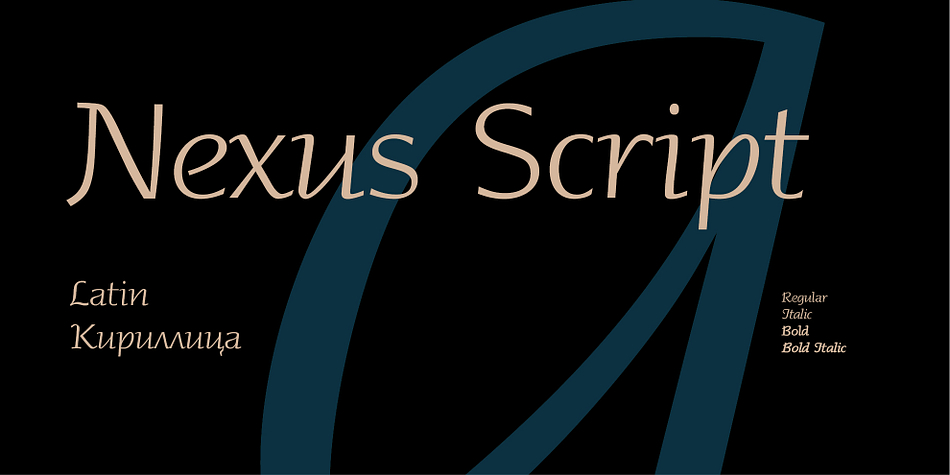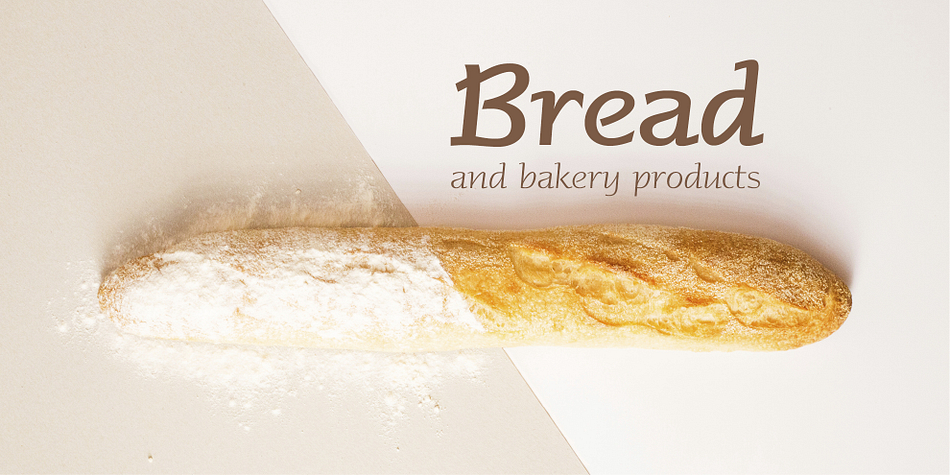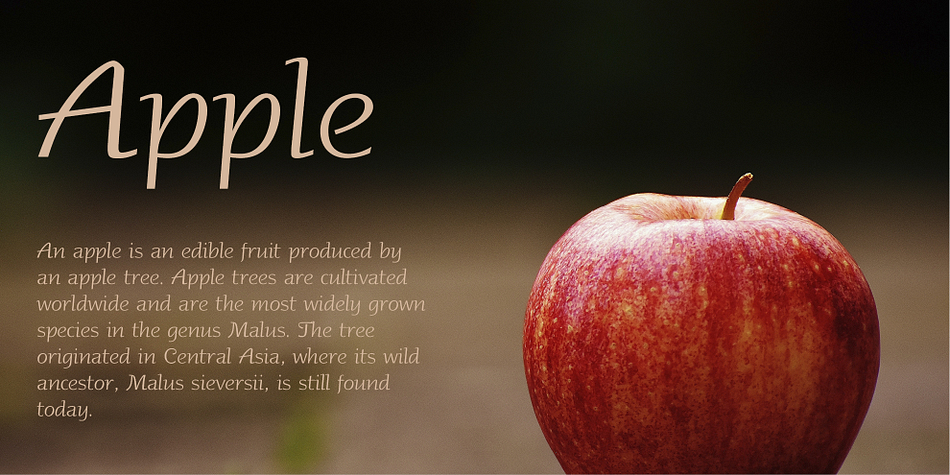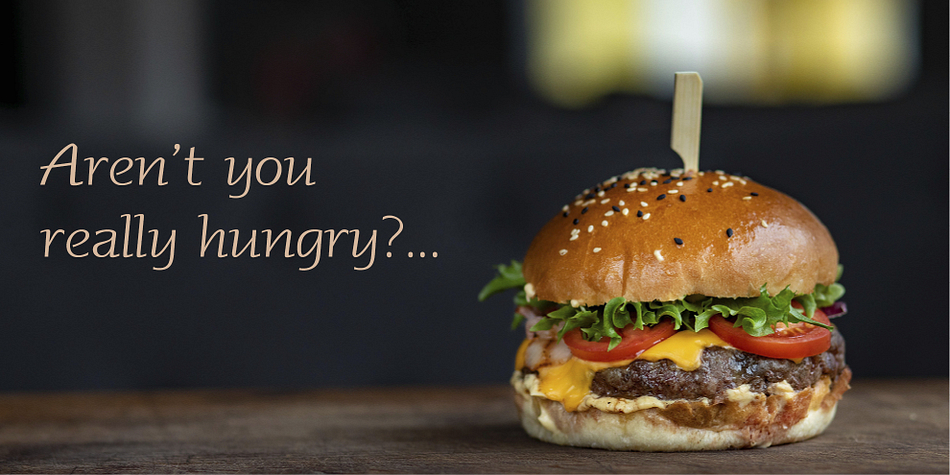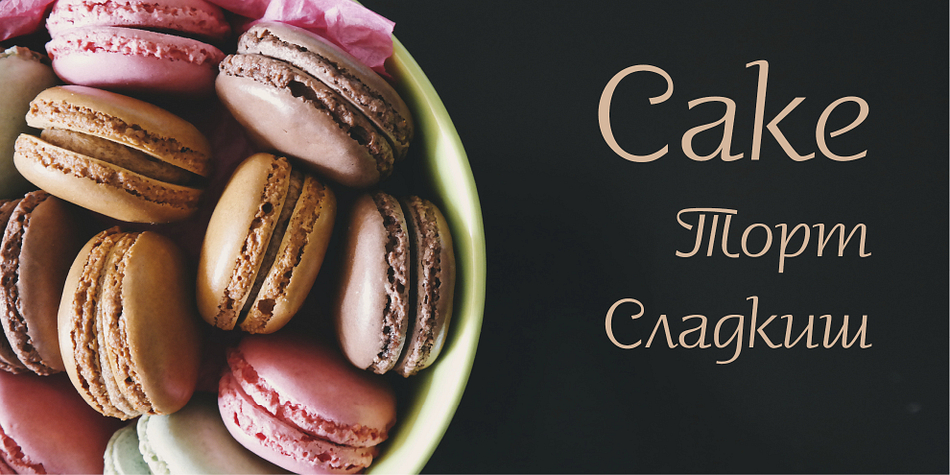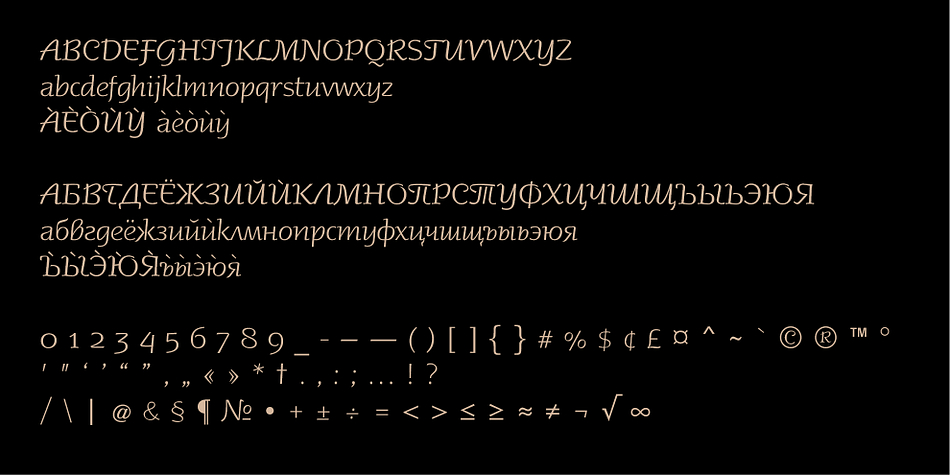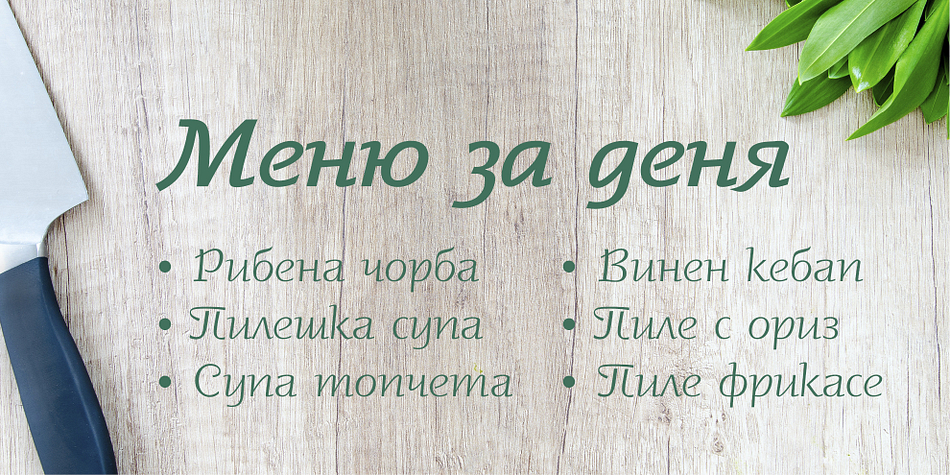
Nexus Script
Designed by Jivko Stankulov, Nexus Script is a script font family. This typeface has four styles and was published by Context Ltd.
Inspired by Cancelleresca corsiva style Nexus Script is a modern calligraphy font family of 4 fonts – Regular, Italic, Bold, Bold Italic. Nexus Script contains Basic Latin and Basic Cyrillic letters – 212 characters and 223 glyphs. Layout features support – aalt ccmp cv01 ordn salt.
Foundry Context Ltd
Designer Jivko Stankulov